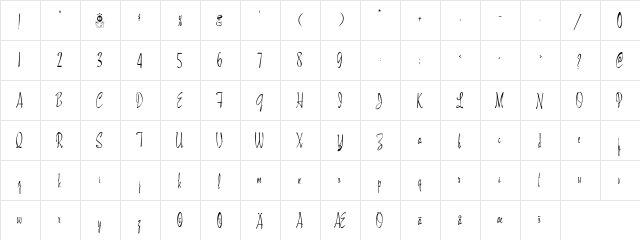
Maidstone Regular
Design Context for Maidstone Typeface
Maidstone takes a measured approach to typography — its balanced proportions and neutral character make it a reliable workhorse for both digital and print work.
Pro Tip: Use Maidstone in both headline and body roles to test its range before committing to a single application.